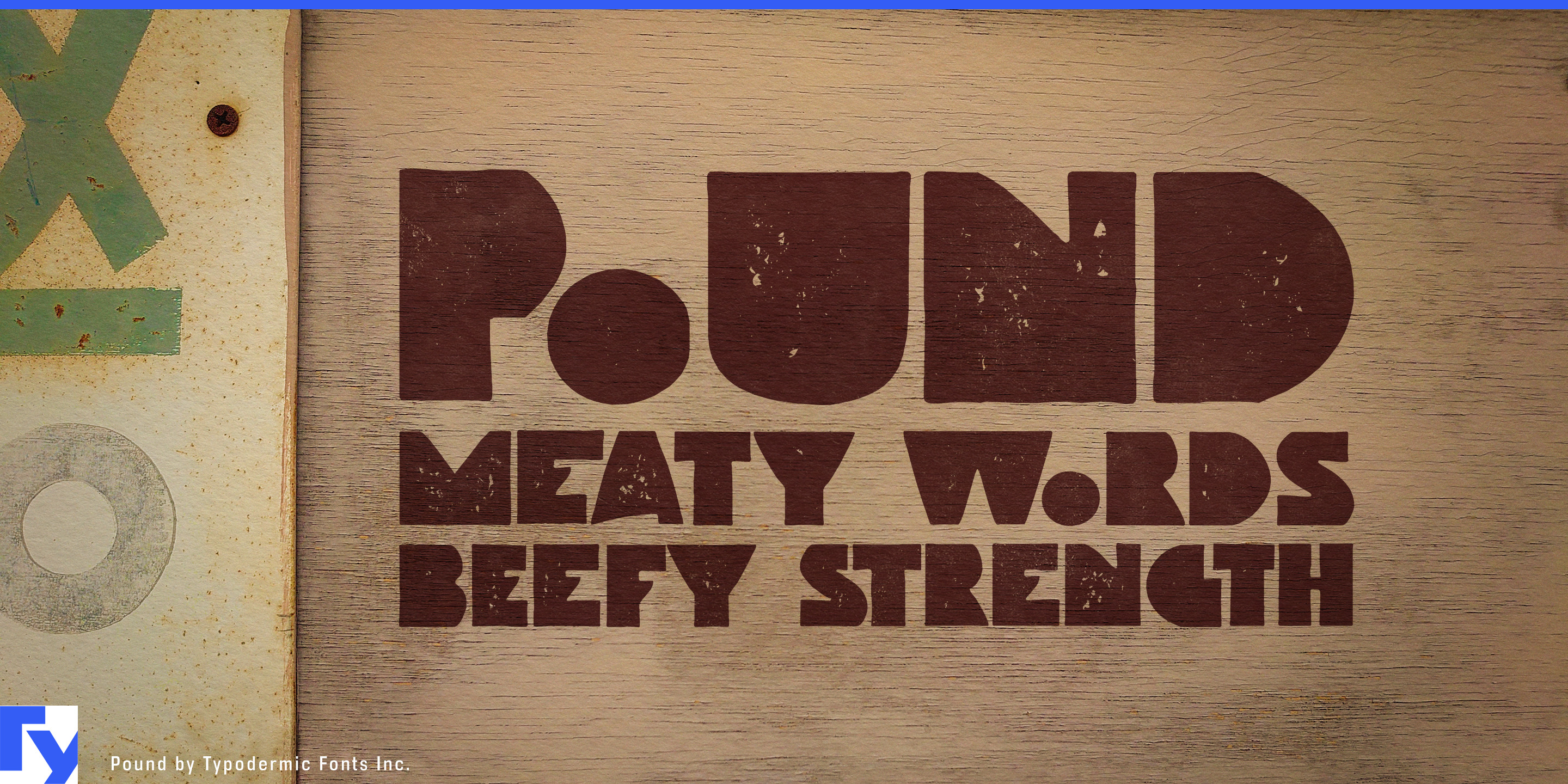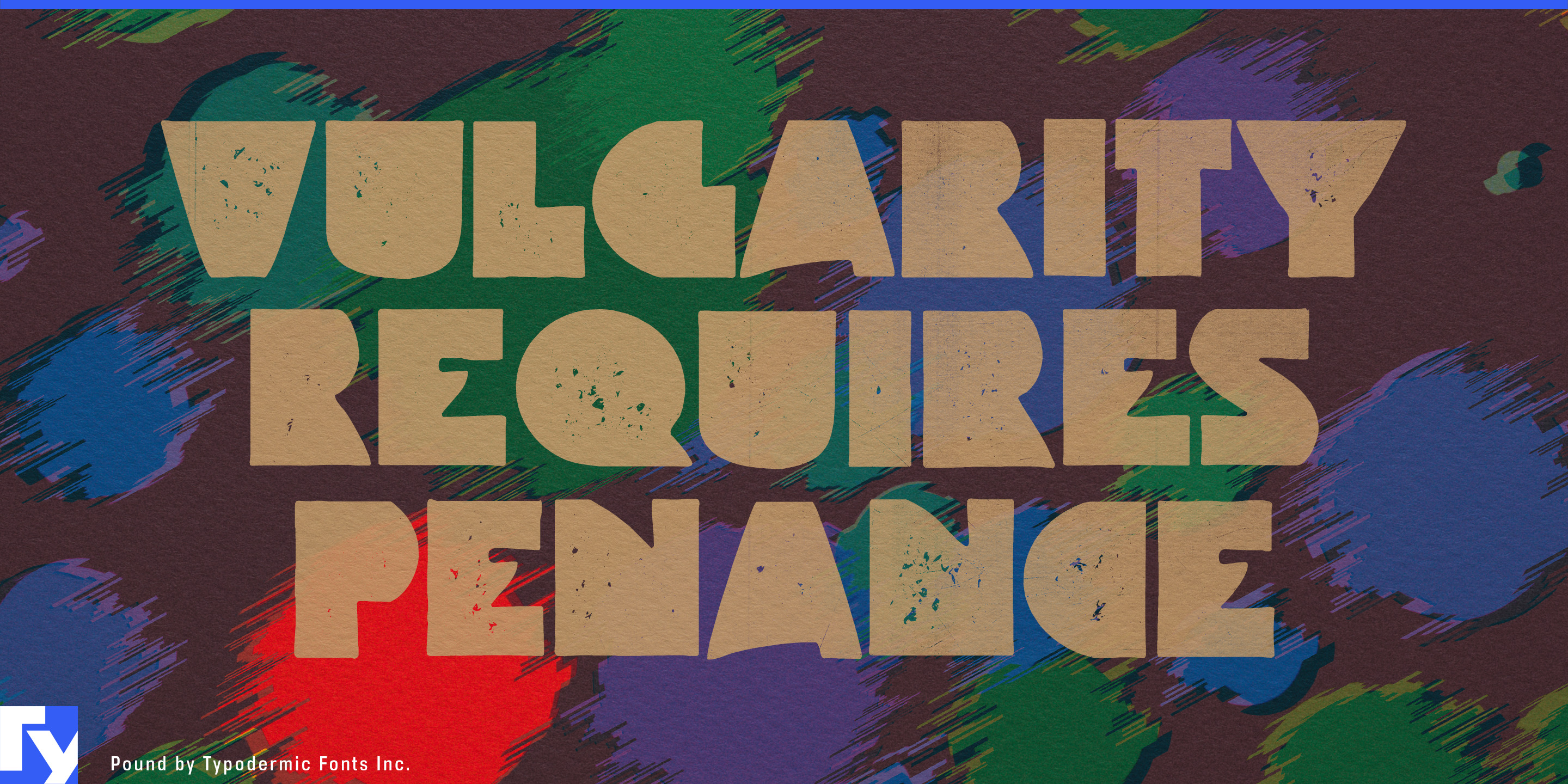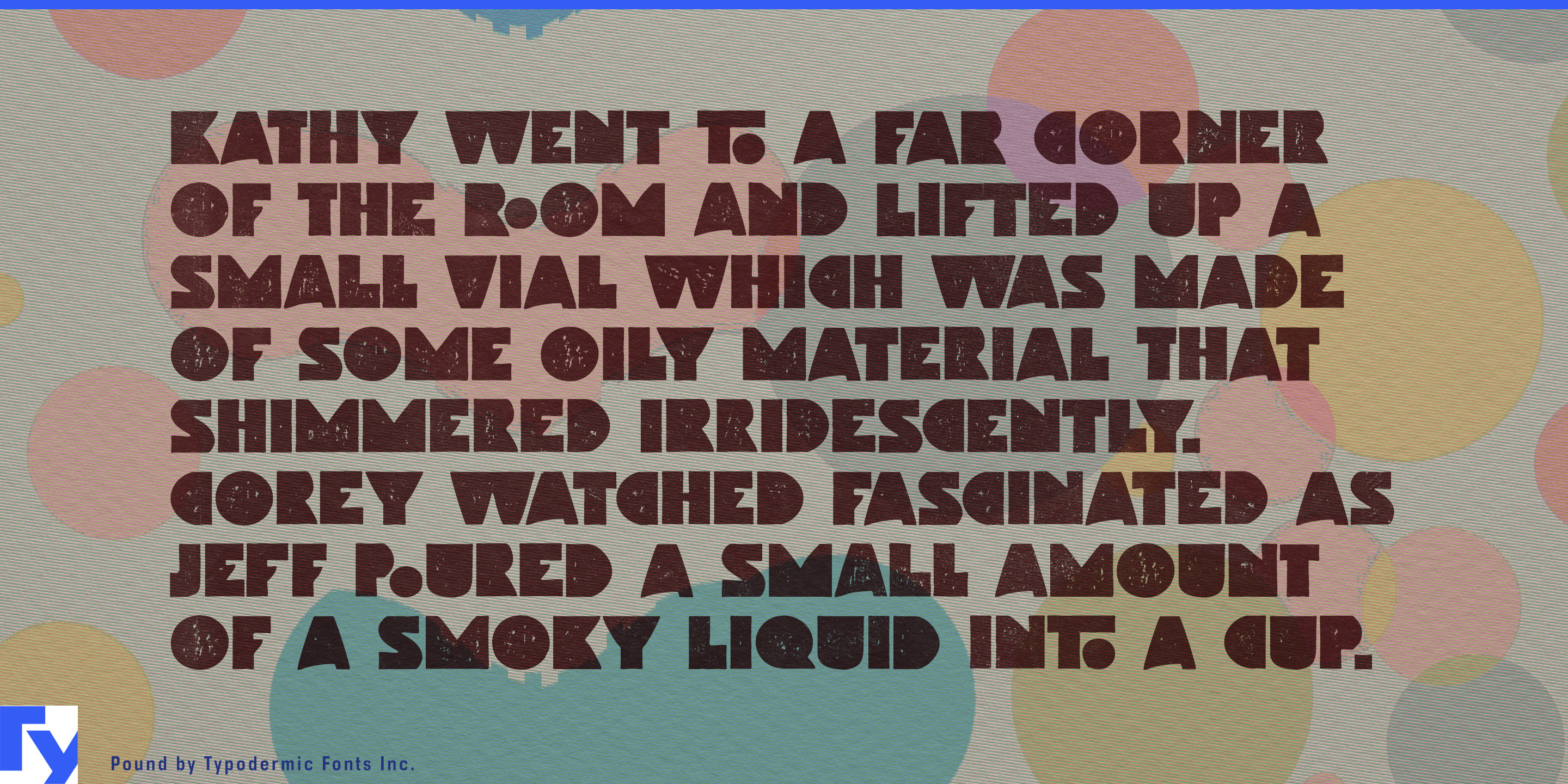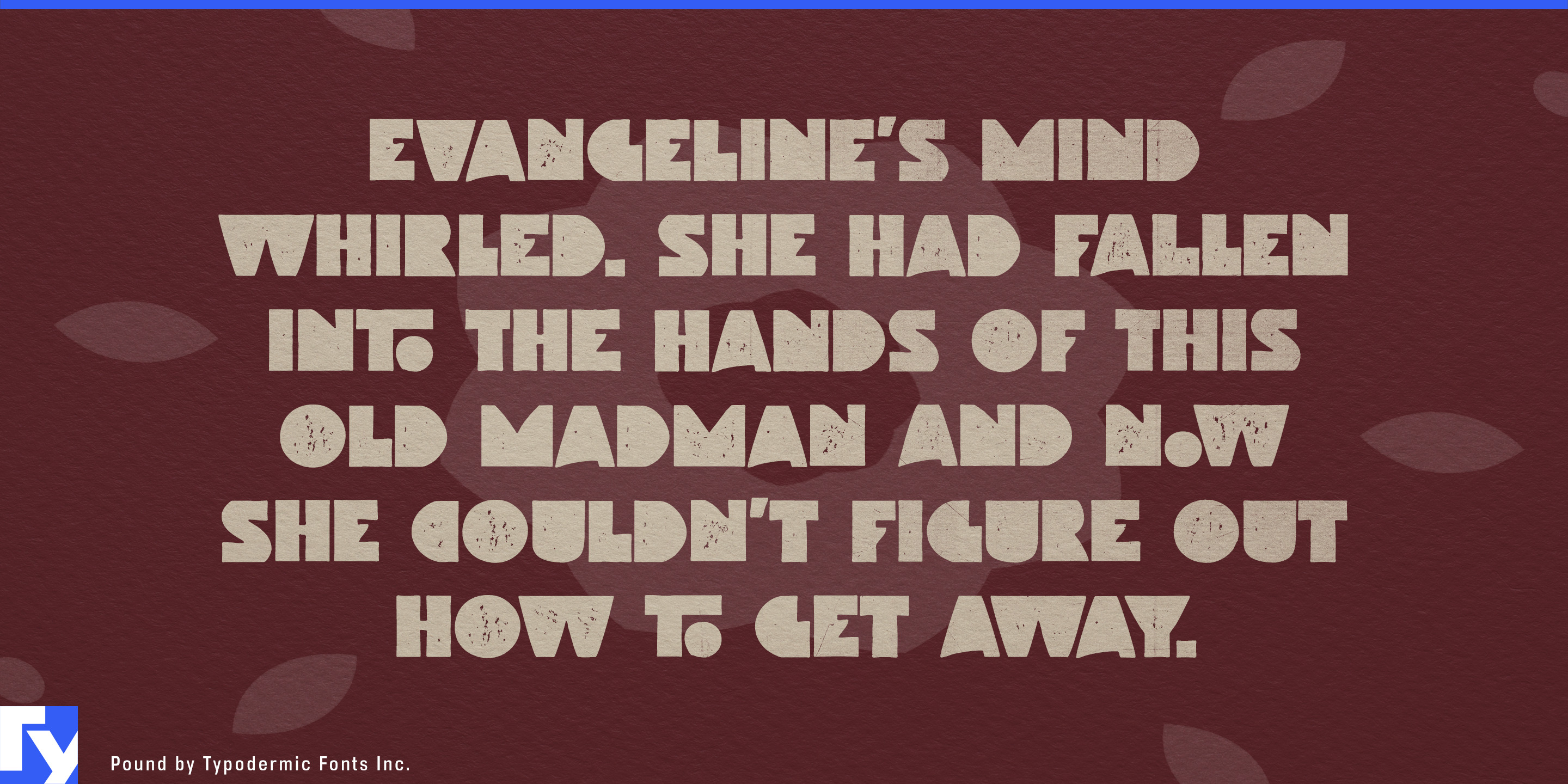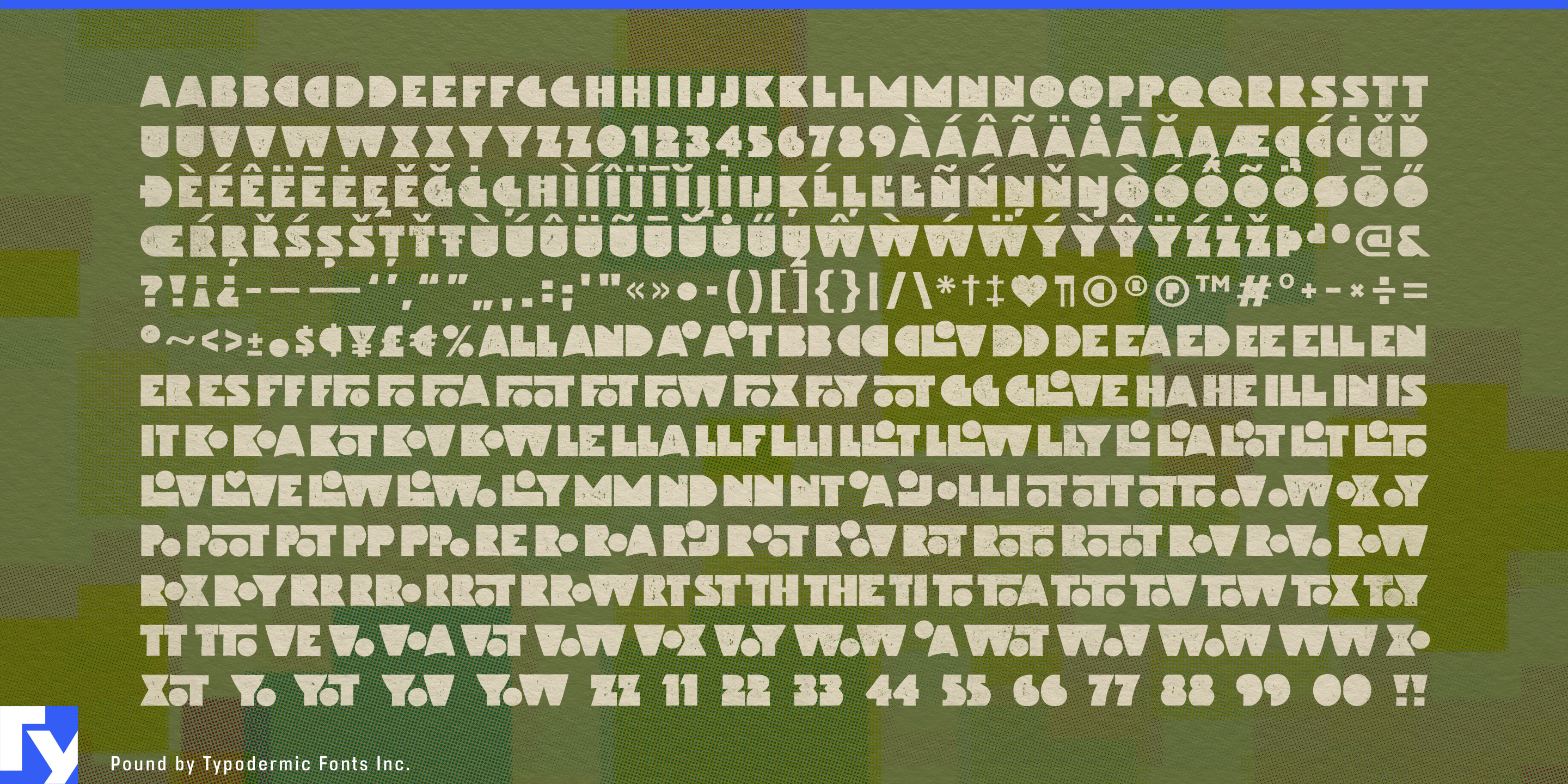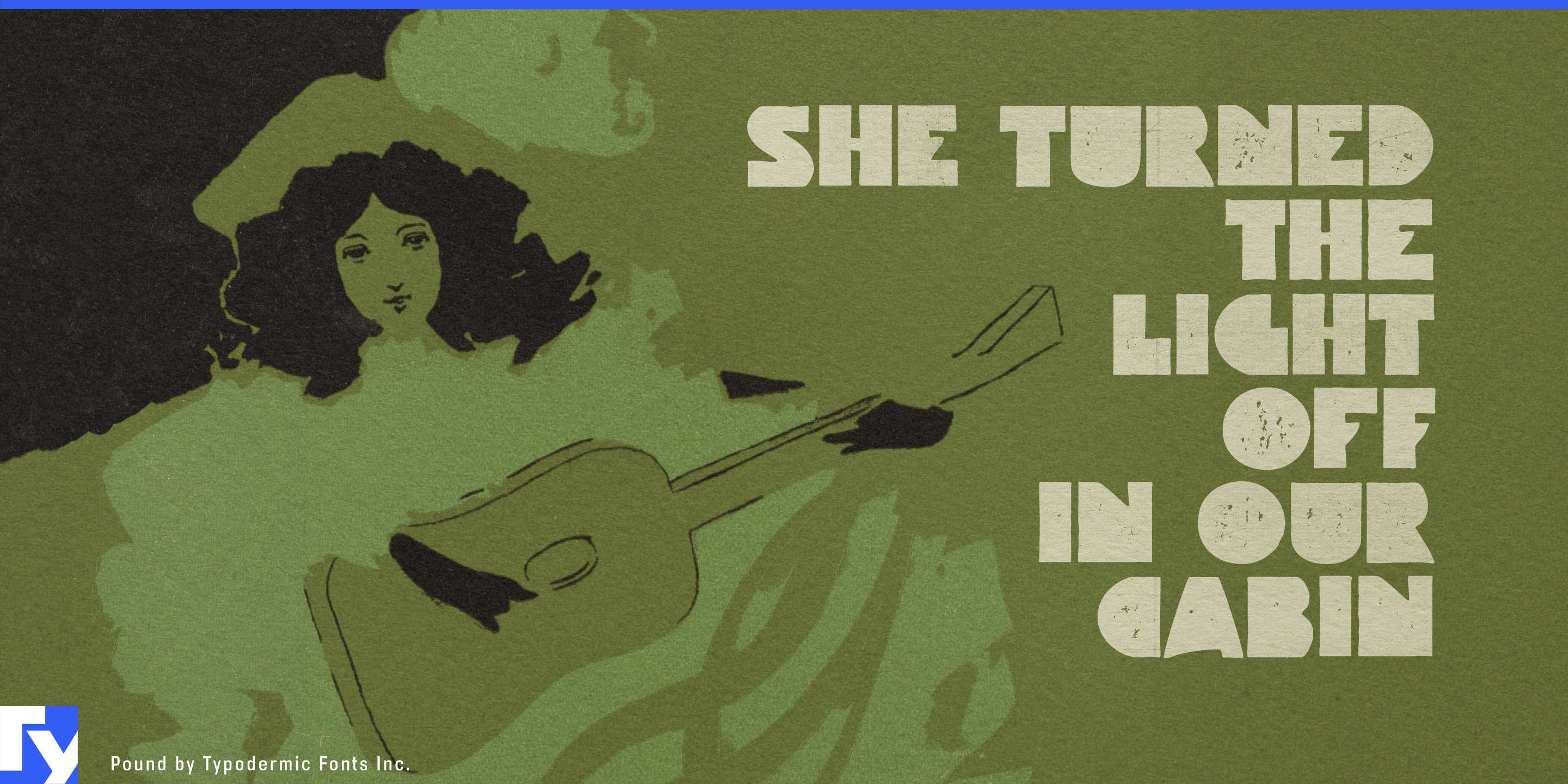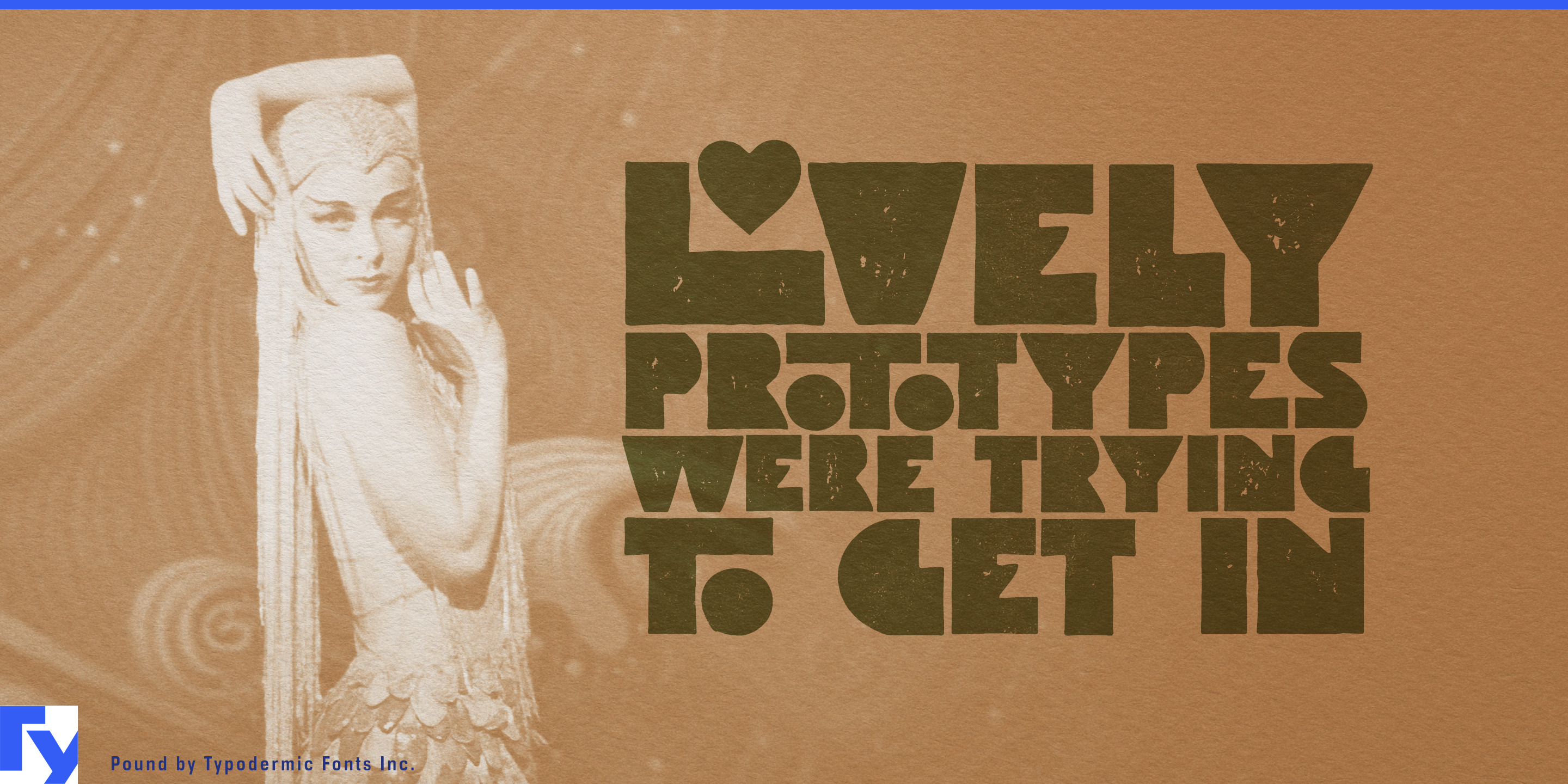
Pound
Large campaigns often need more than a headline. They need a short word or name that can become a graphic asset in its own right; something substantial enough for a package front, arena screen, fan-zone entrance, retail display, or oversized environmental graphic. Pound approaches that problem with chunky counterless letters, irregular geometry, and interlocking forms that turn short words into compact blocks rather than ordinary lines of type.
Sports celebrations are a natural setting. Major football tournaments, basketball events, international competitions, fan festivals, viewing zones, sponsor activations, and arena campaigns generate event titles, city graphics, supporter merchandise, concourse signs, retail displays, giant-screen graphics, and commemorative products. Pound has the scale and informality for the public-facing side of sport without relying on varsity lettering or performance-tech clichés.
Sports collectibles extend that language into sticker collections, trading-card series, tournament albums, collector boxes, limited-edition packs, athlete features, and retail displays. Short series names can become bold package graphics, while the interlocking forms keep the typography from feeling like an ordinary heavy sans enlarged to fill the box.
Large beverage and snack campaigns provide another strong territory. Soft drinks, sports hydration, sparkling beverages, chips, frozen treats, snack multipacks, and seasonal launches often need product names, flavor names, limited editions, and collaboration titles to dominate the package. Pound’s solid shapes can carry loud color, photography, patterns, and layered graphics, then continue into vending graphics, supermarket displays, stadium concessions, sampling campaigns, and tournament-edition packaging.
Brand activations and temporary environments give those forms room to become even larger. Beverage pop-ups, sports sponsor installations, product launches, sampling spaces, fan experiences, and branded photo environments can use Pound for wall-scale words, entrance graphics, merchandise, and campaign titles.
Pound Regular carries the stronger texture and interlocking behavior for hero graphics, packaging, posters, merchandise, and environmental work. Pound Web keeps the broad counterless construction in a cleaner form, giving the same identity another level for digital promotions, schedules, screen graphics, social assets, and supporting display material.
Pound works best when the typography is expected to occupy real visual territory. A short tournament name, flavor, collection title, sponsor campaign, or event phrase can become a solid graphic shape that travels from packaging to screens, merchandise, retail displays, and large physical environments without losing its identity.